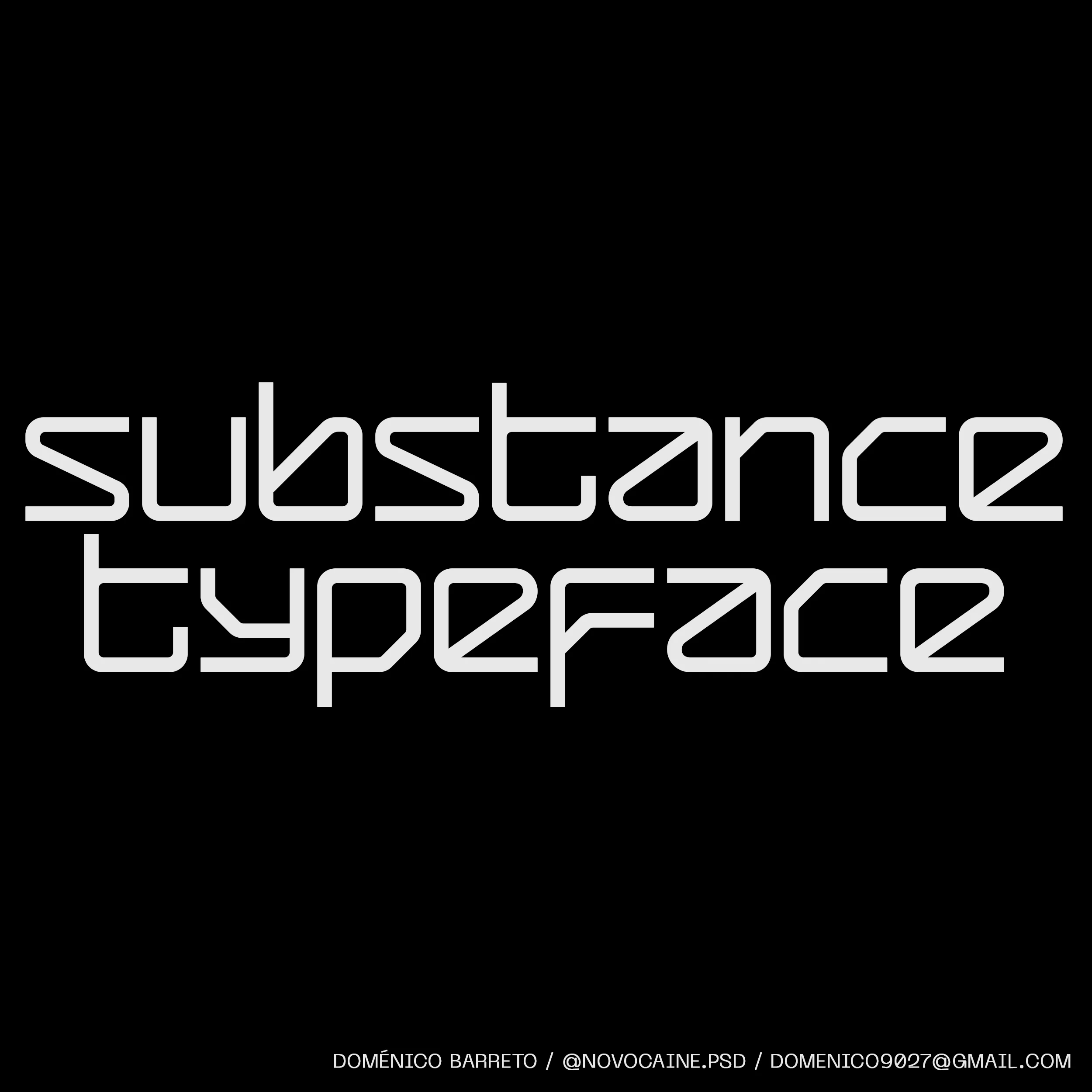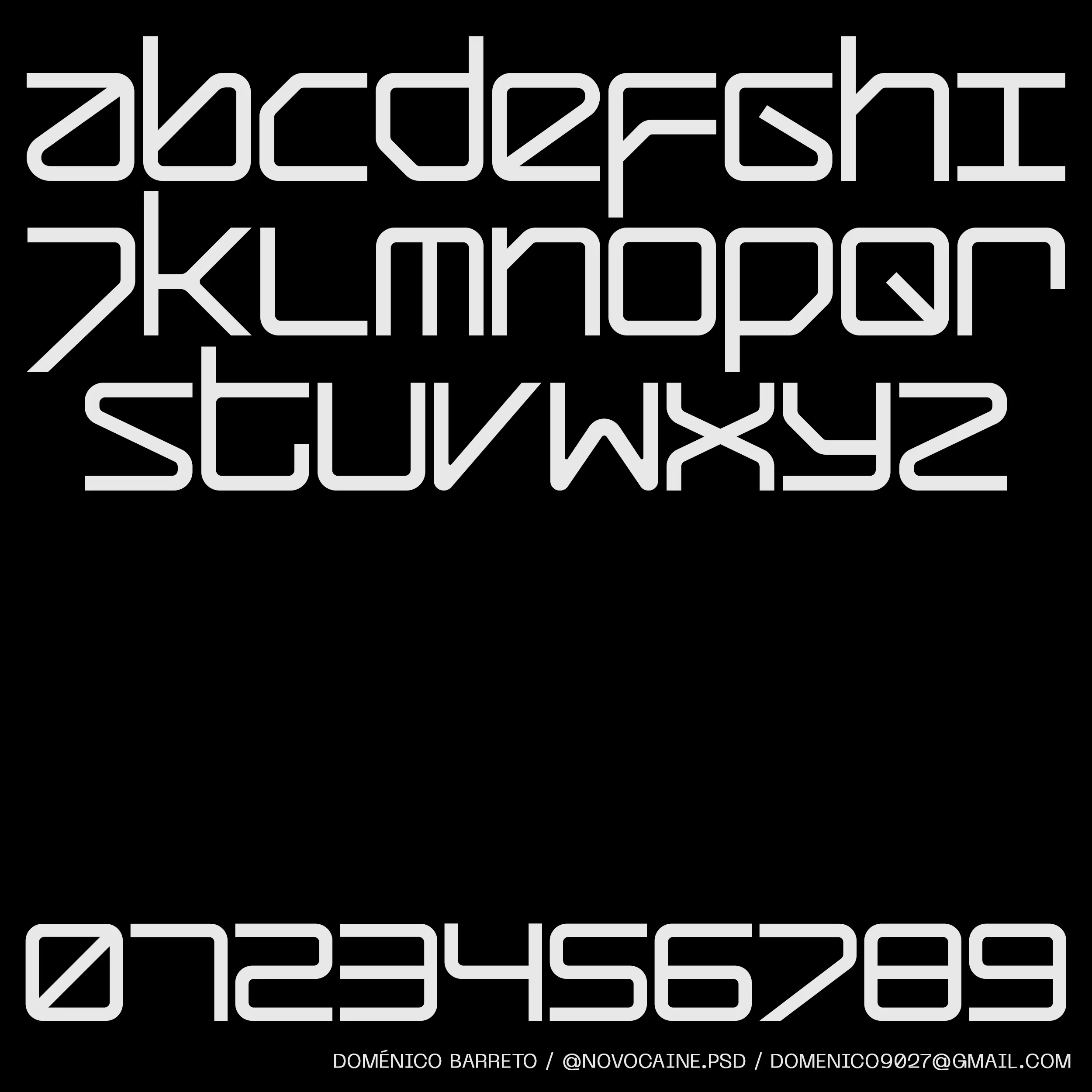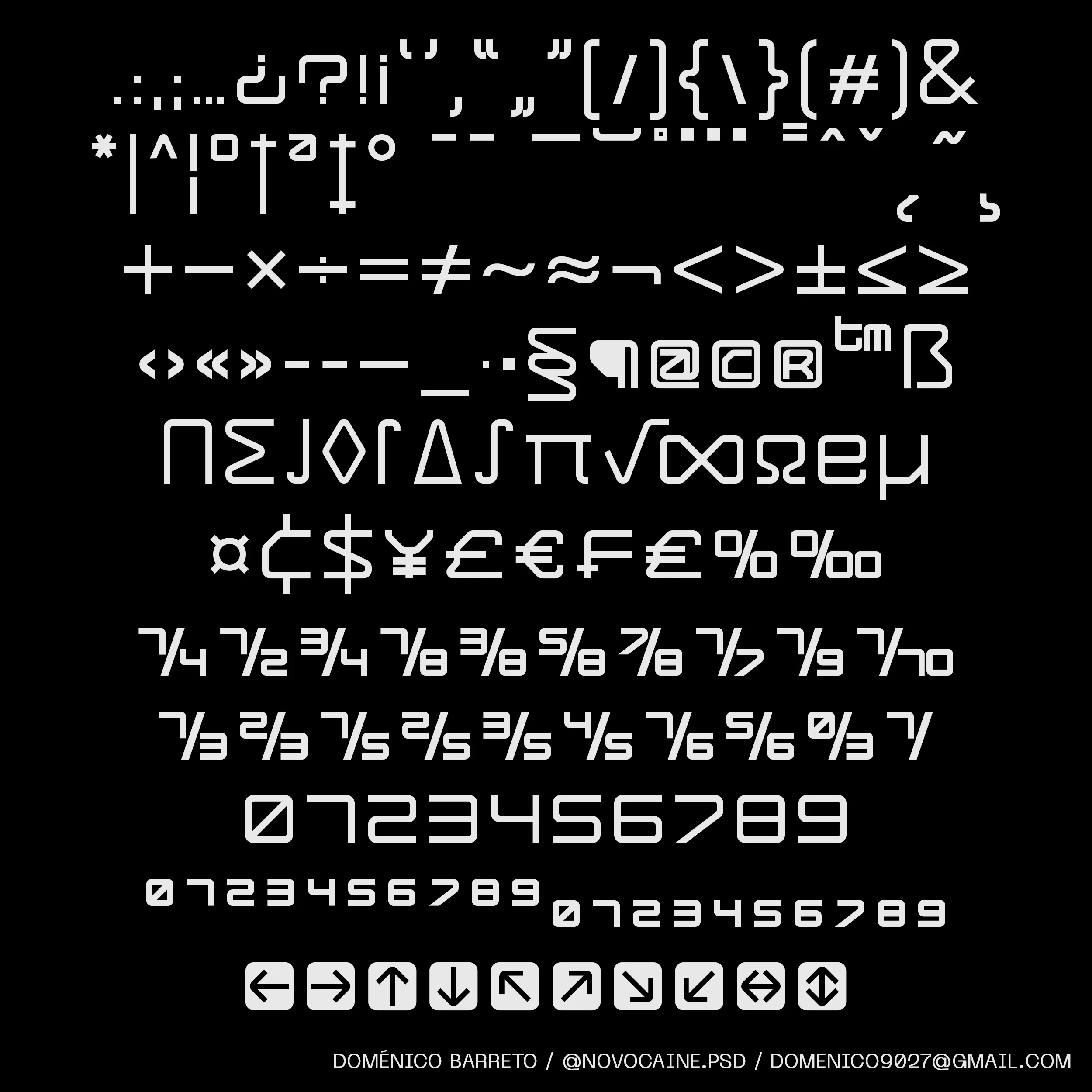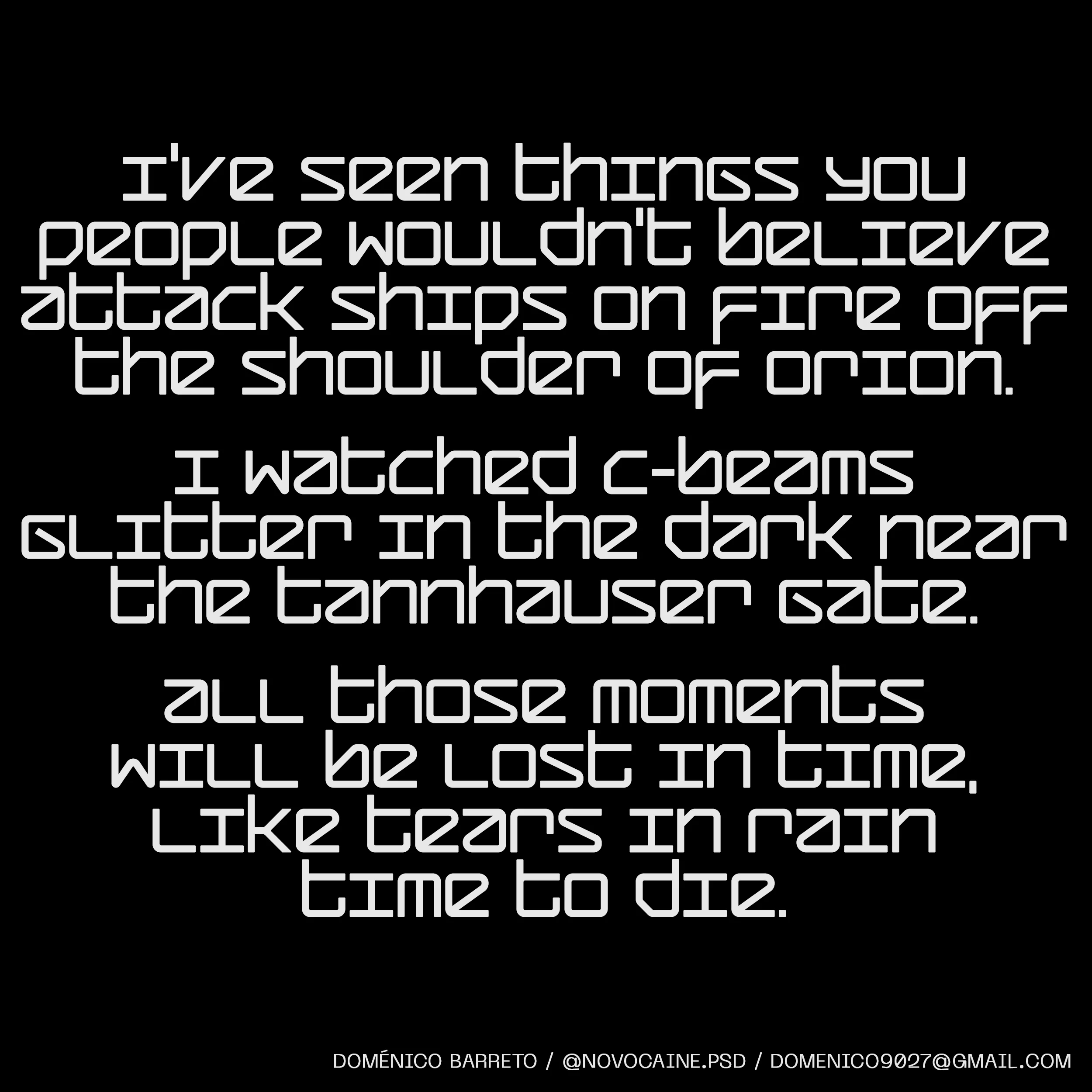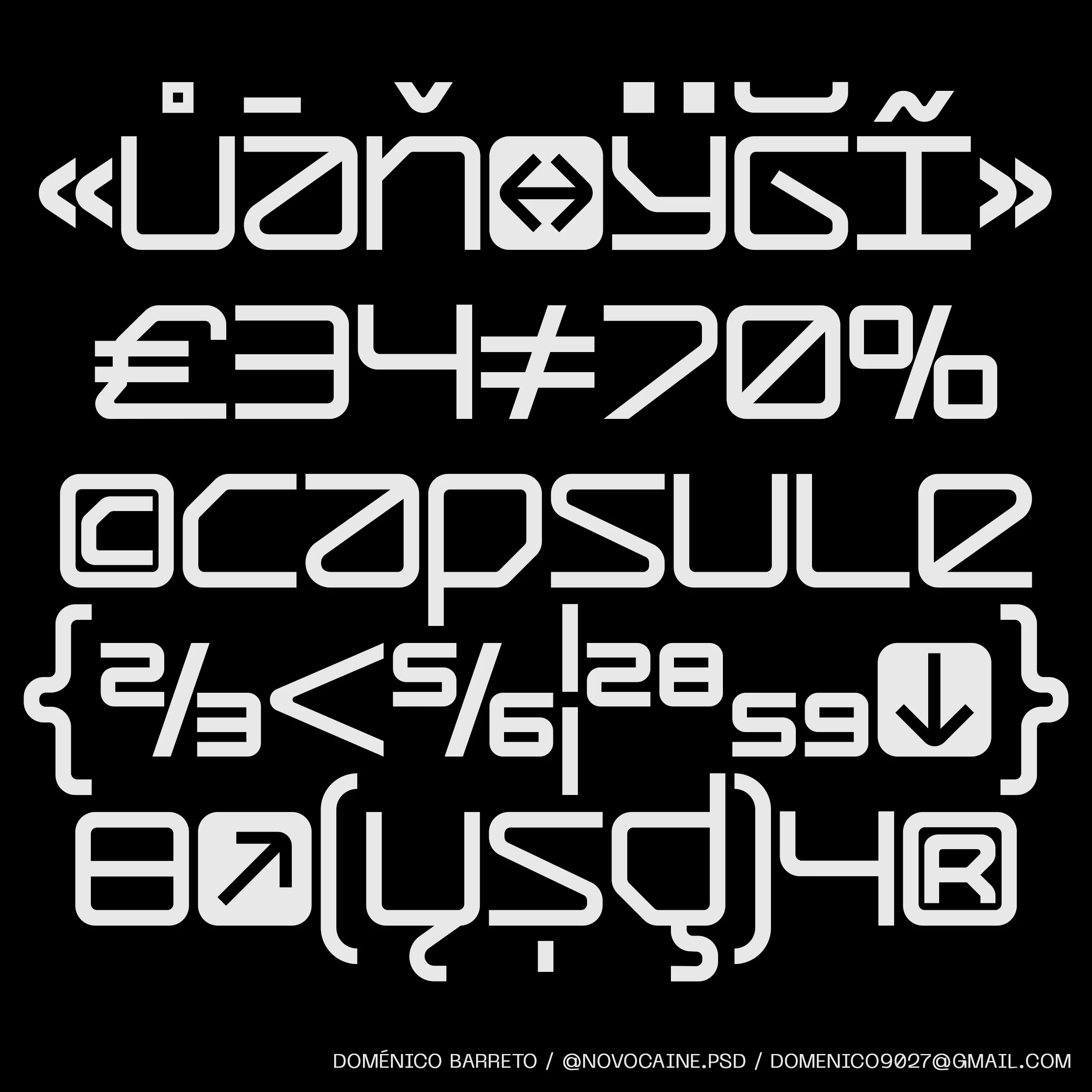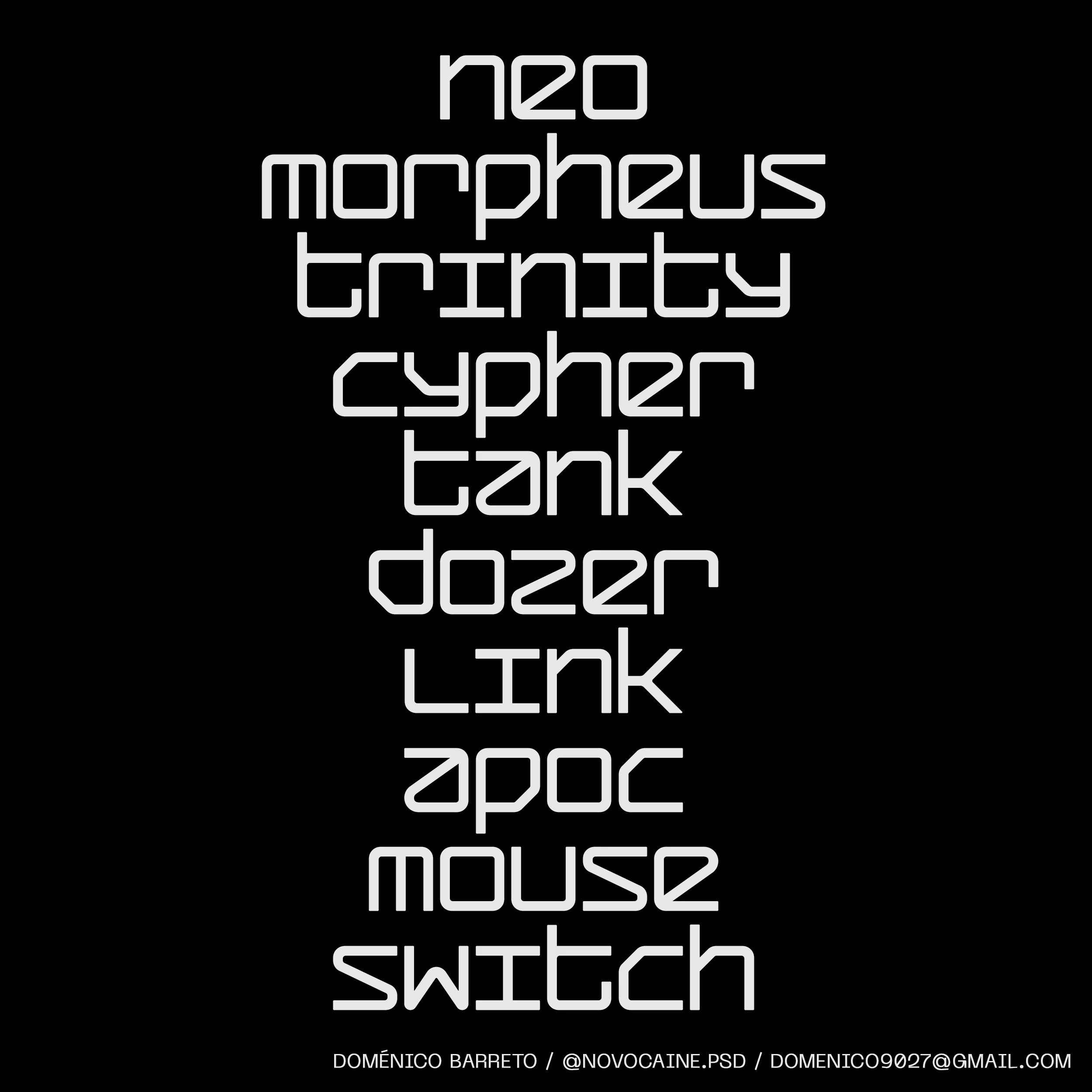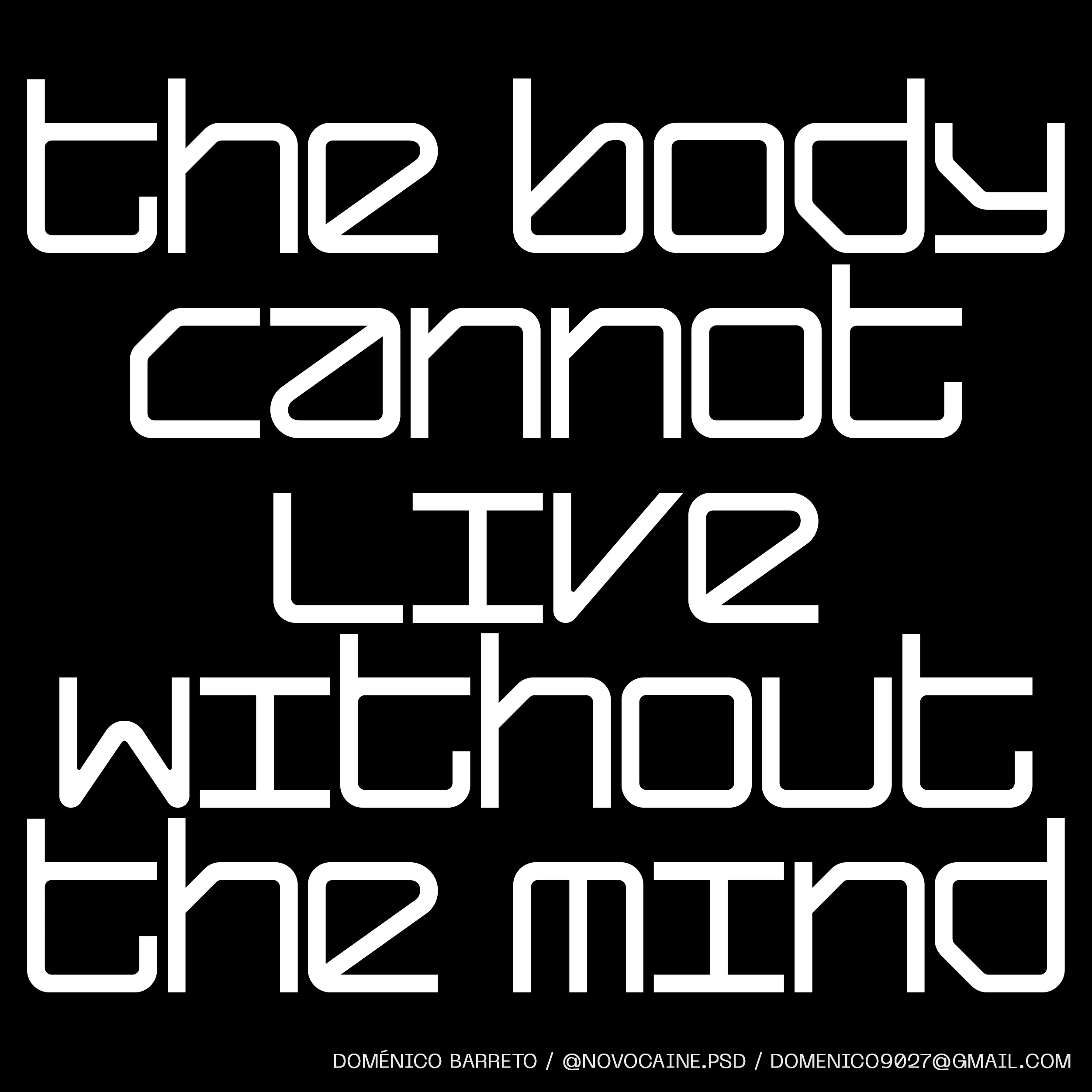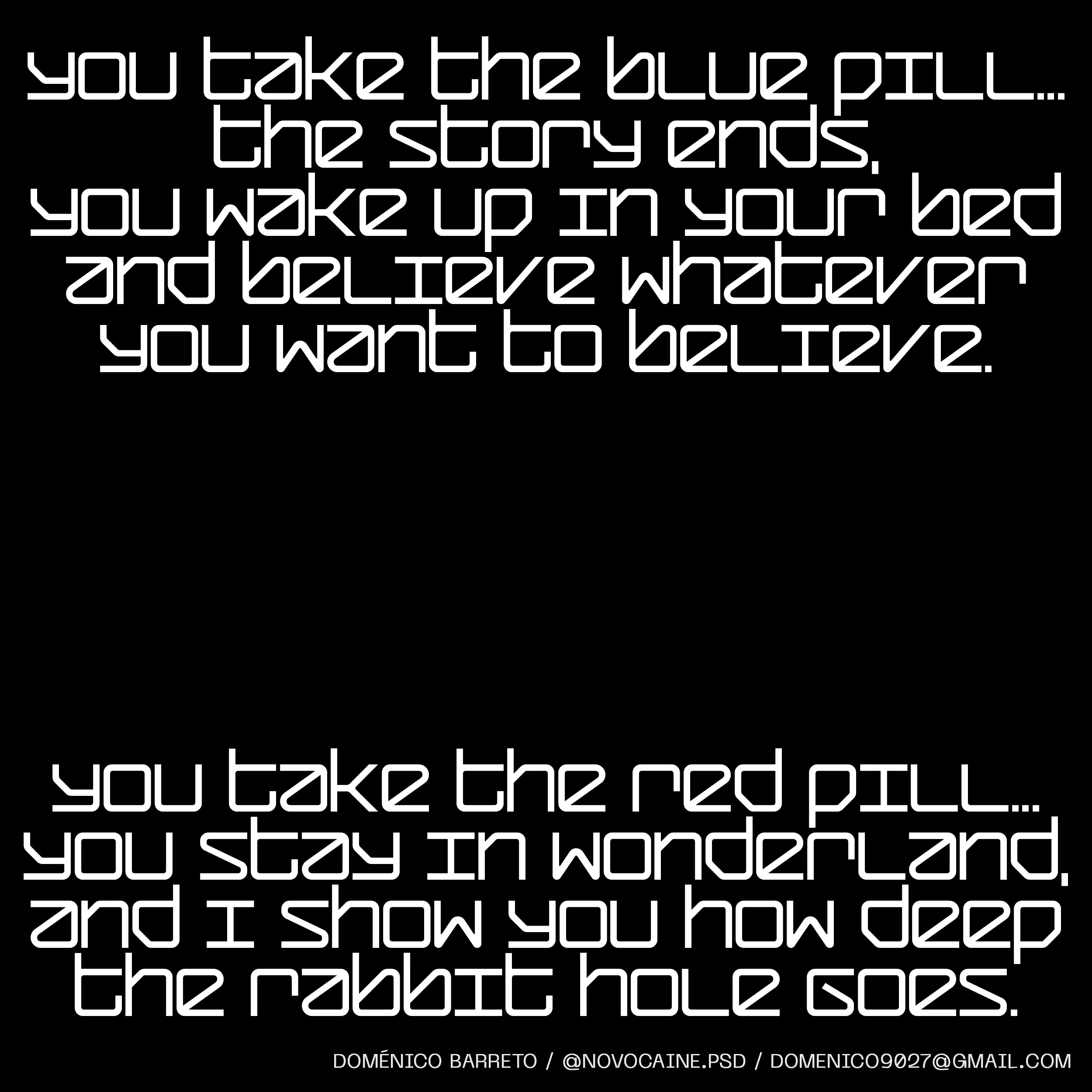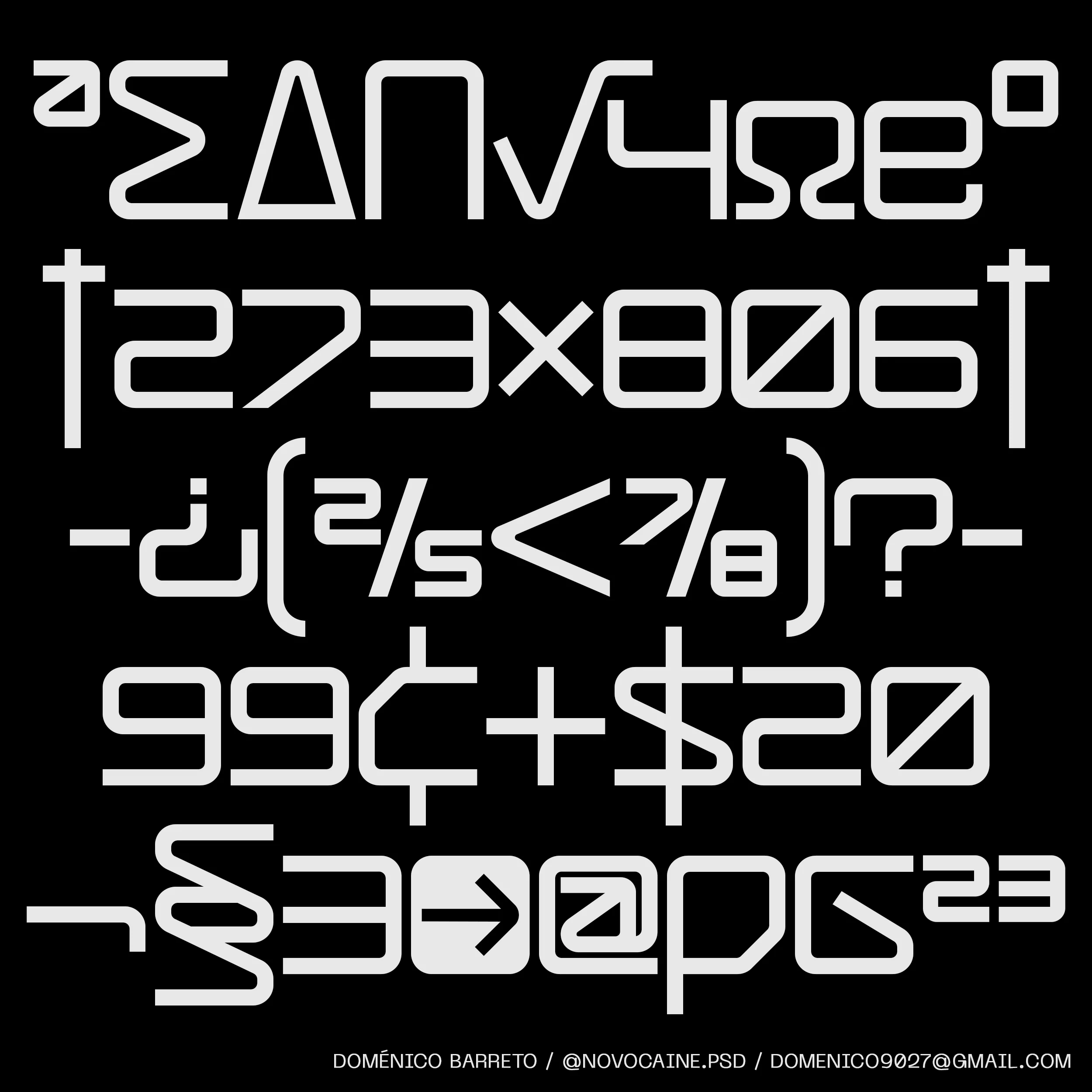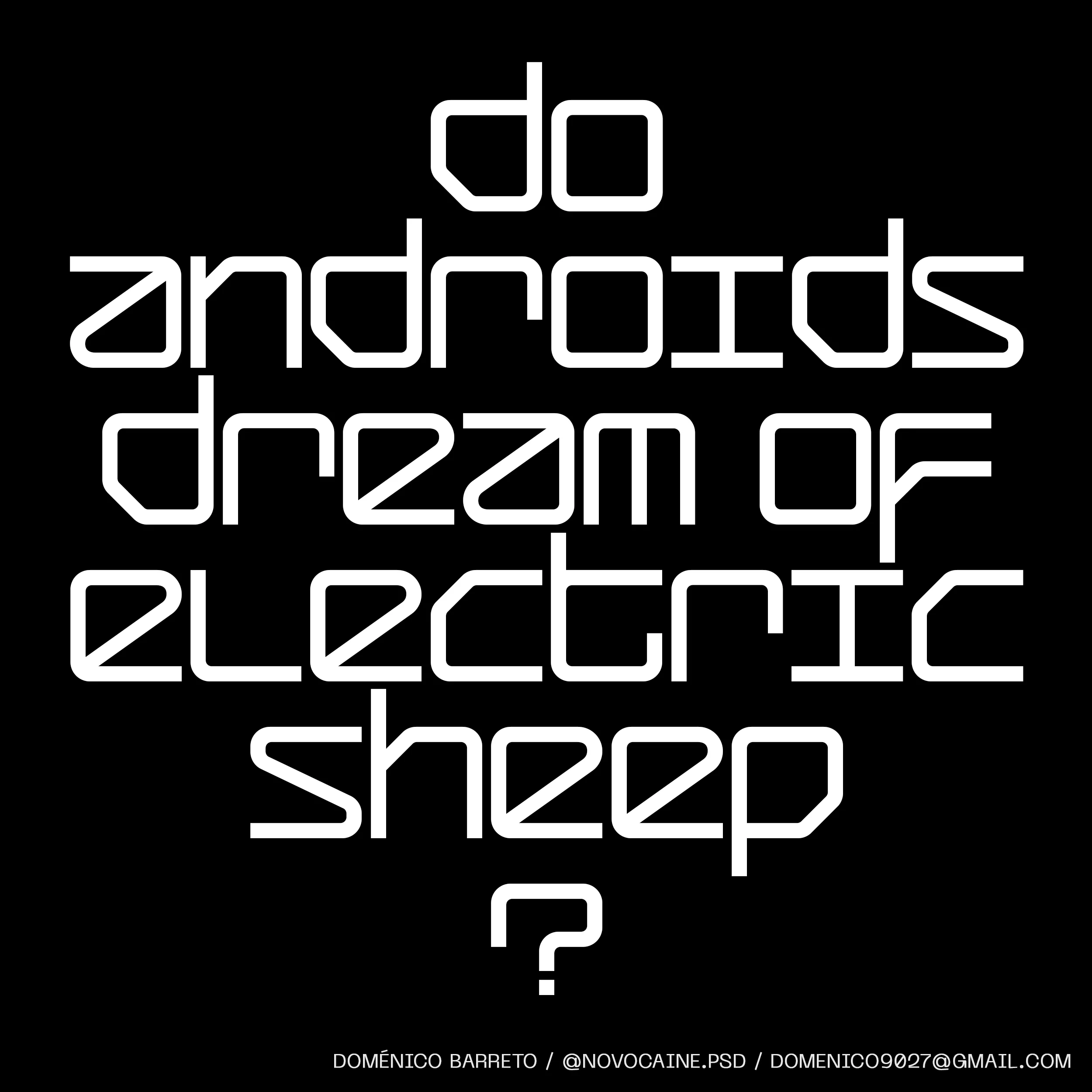
Substance
Substance is a sleek sans serif display typeface that draws inspiration from the Y2K aesthetic, capturing the essence of a bygone era while infusing it with a contemporary twist. With its clean lines and minimalist forms, Substance evokes the digital optimism of the early 2000s, reflecting a time when technology was rapidly evolving and design trends were embracing a futuristic vibe.
Ideal for headlines, branding, and digital interfaces, Substance balances simplicity with a touch of nostalgia.
Substance is a sleek sans serif display typeface that draws inspiration from the Y2K aesthetic, capturing the essence of a bygone era while infusing it with a contemporary twist. With its clean lines and minimalist forms, Substance evokes the digital optimism of the early 2000s, reflecting a time when technology was rapidly evolving and design trends were embracing a futuristic vibe.
Ideal for headlines, branding, and digital interfaces, Substance balances simplicity with a touch of nostalgia.